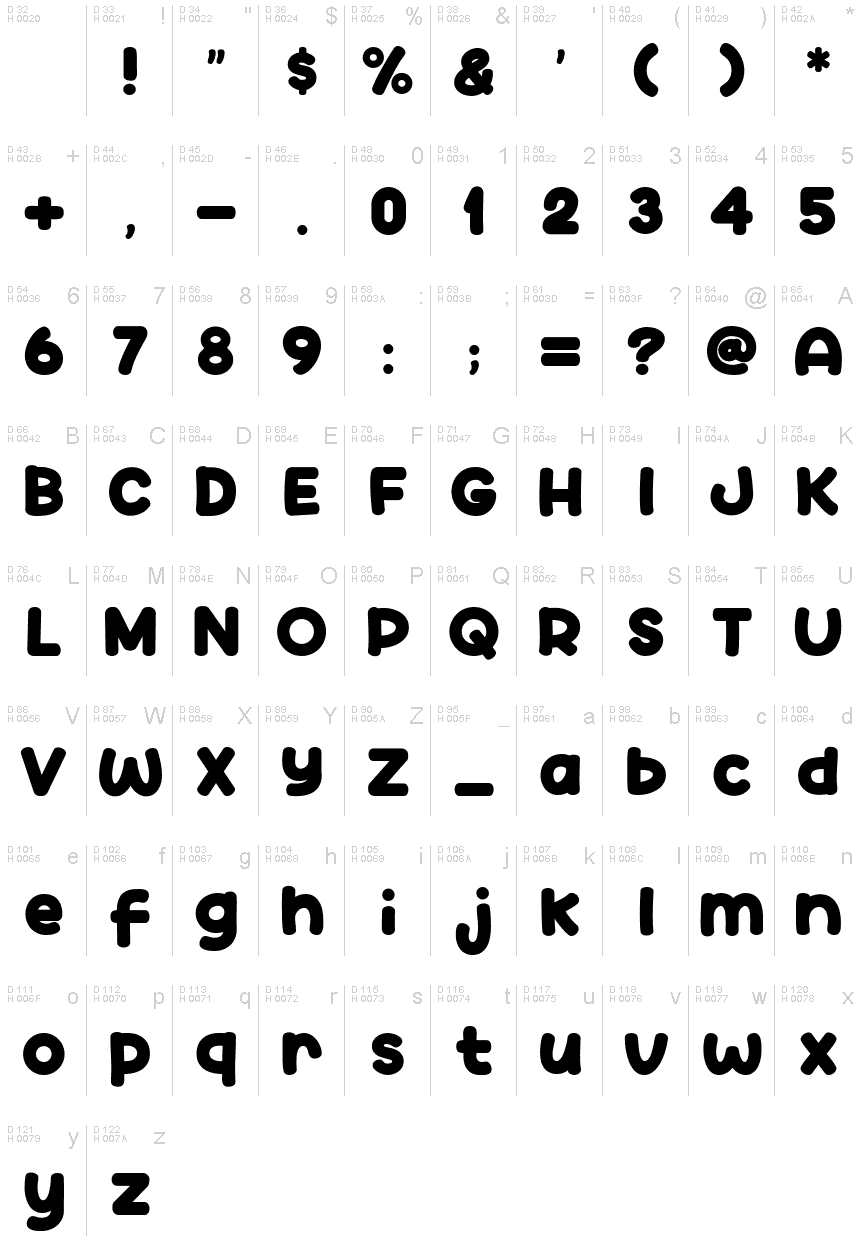
Talk Comic
Get ready to add some fun and playfulness to your design projects with Talk Comic – the newest display font designed by Khurasan. This extra-bold typeface boasts a cartoon style that is sure to capture attention and make any text stand out. Perfect for creating dynamic headlines, posters, book covers, or even logos that require a youthful touch. Whether you are looking to add humor to a brand's identity or create an engaging visual narrative for your comic book, Talk Comic is the perfect font for you. So go ahead and let your imagination run wild – Talk Comic has got you covered!